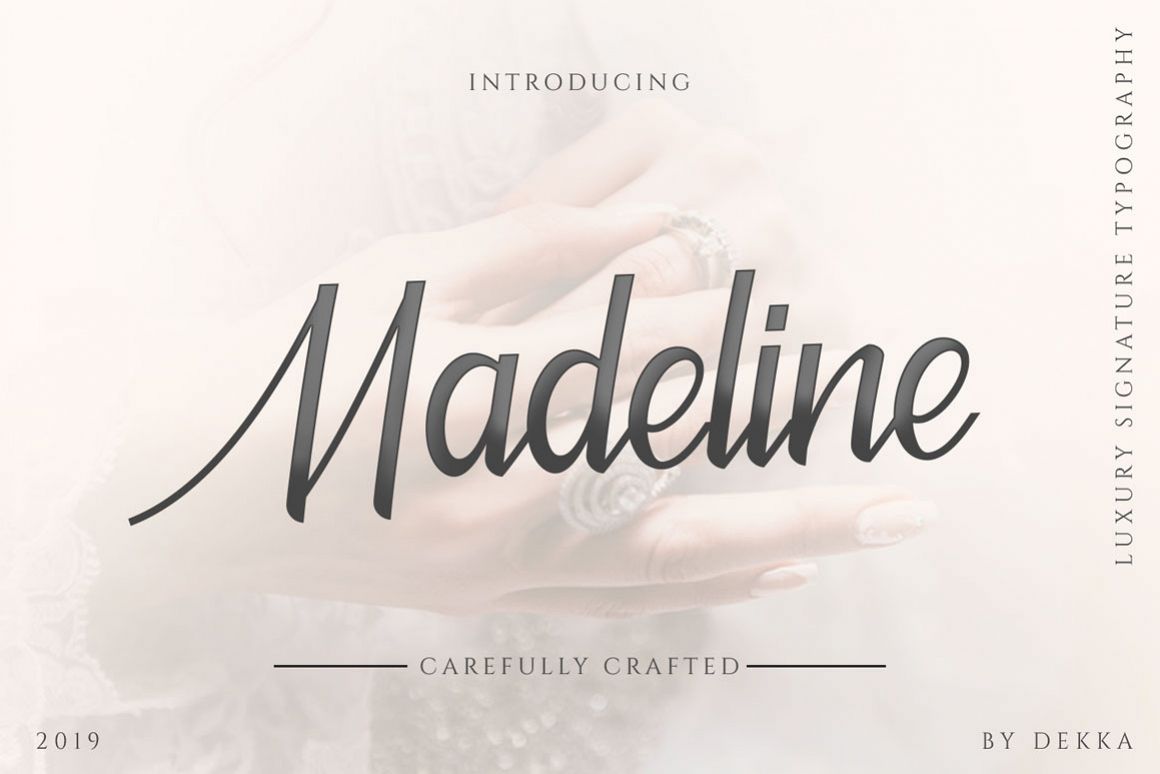
Madeline - Beauty Font
Madeline
Madeline Script - Madeline is Beauty Hand Script font which is carefully crafted to meet the beautiness of product and art
This font is perfect for branding, logo, store, blog, invitations any many more!